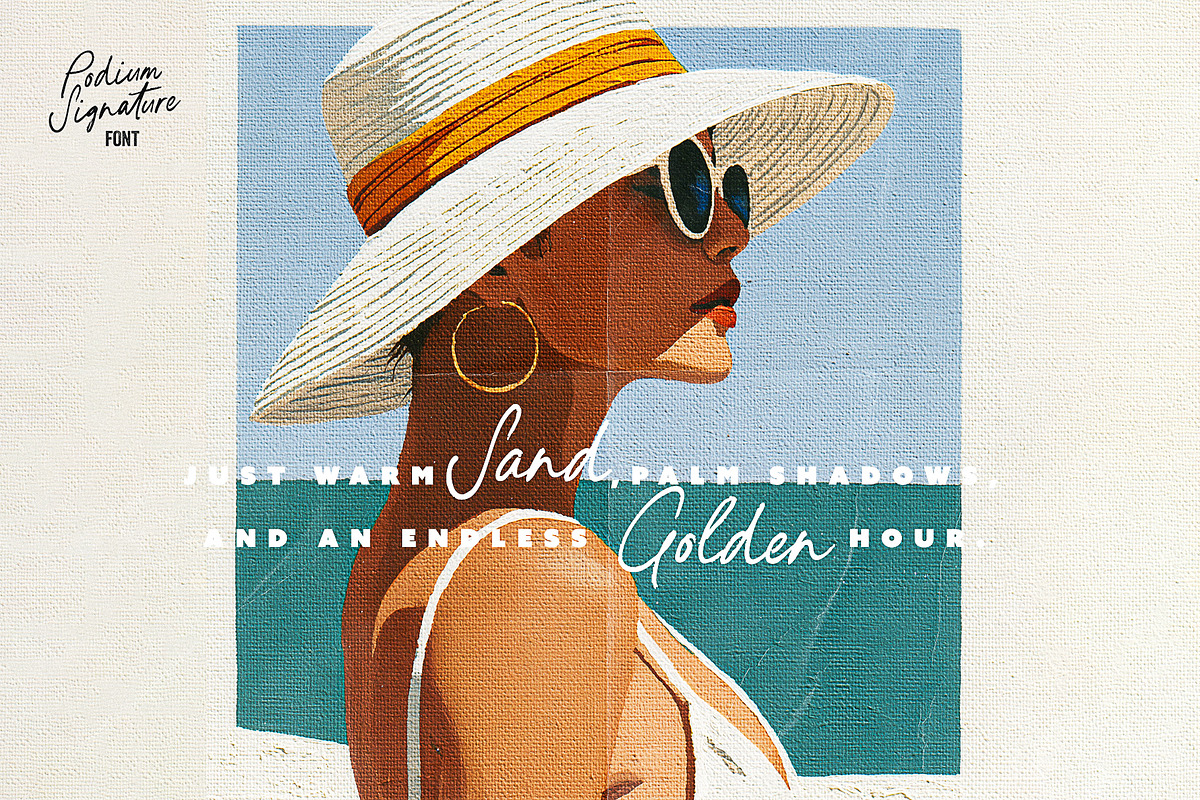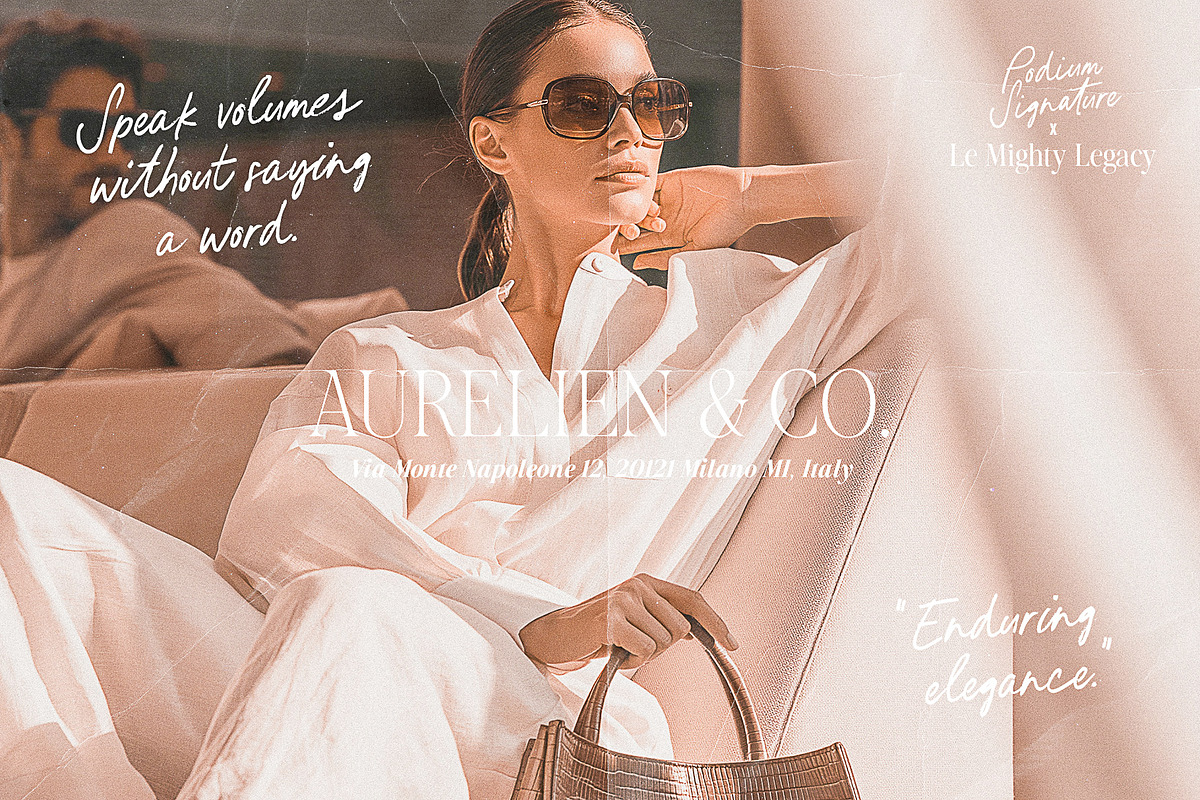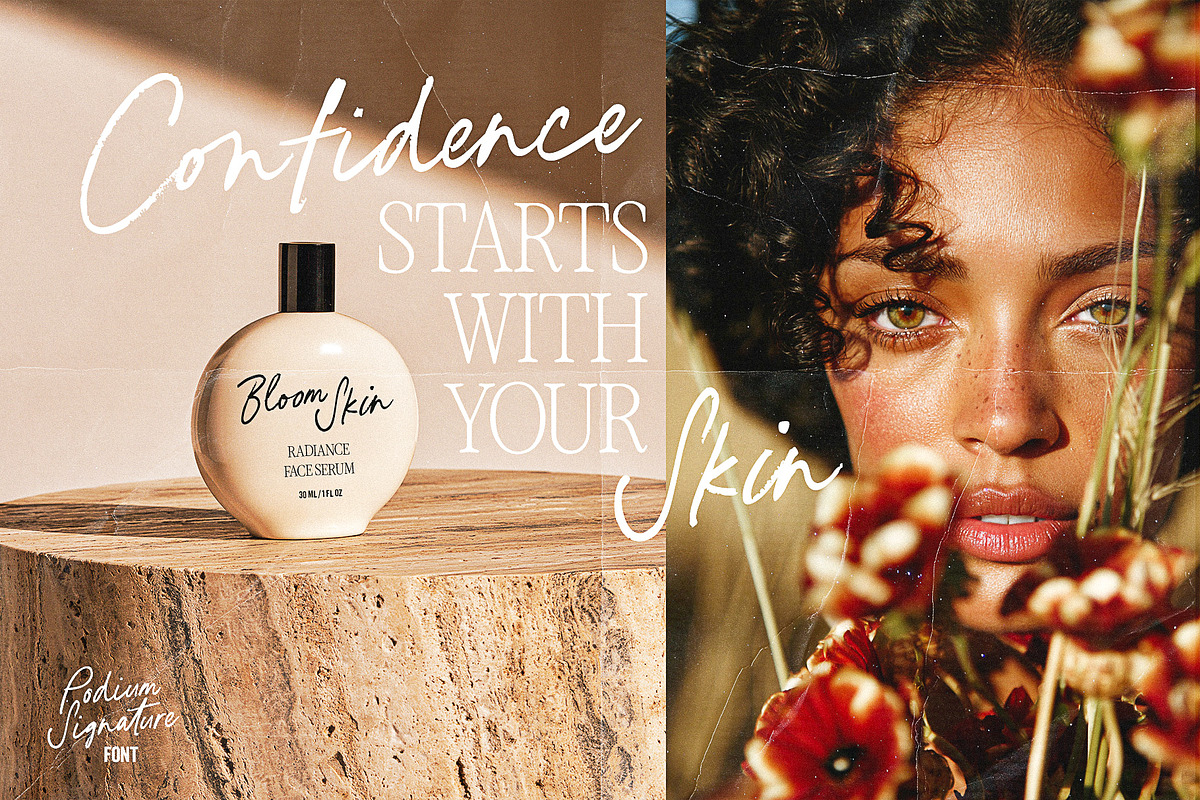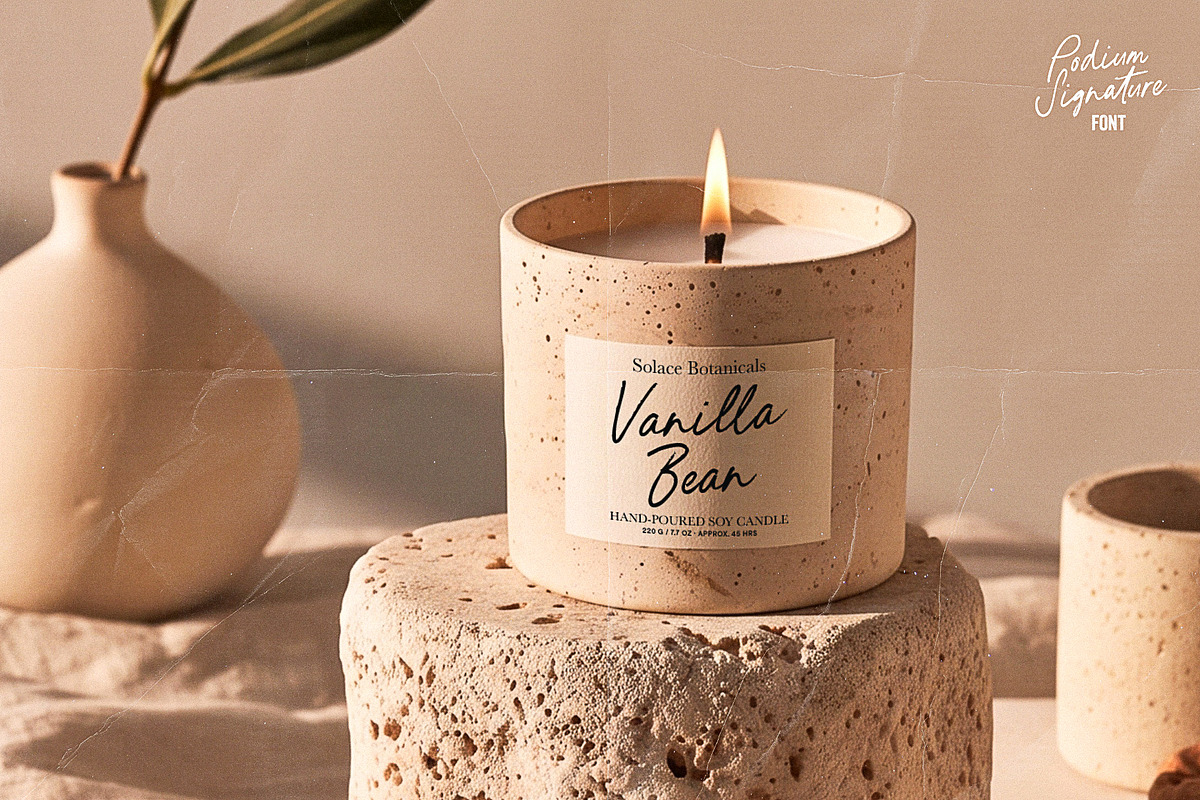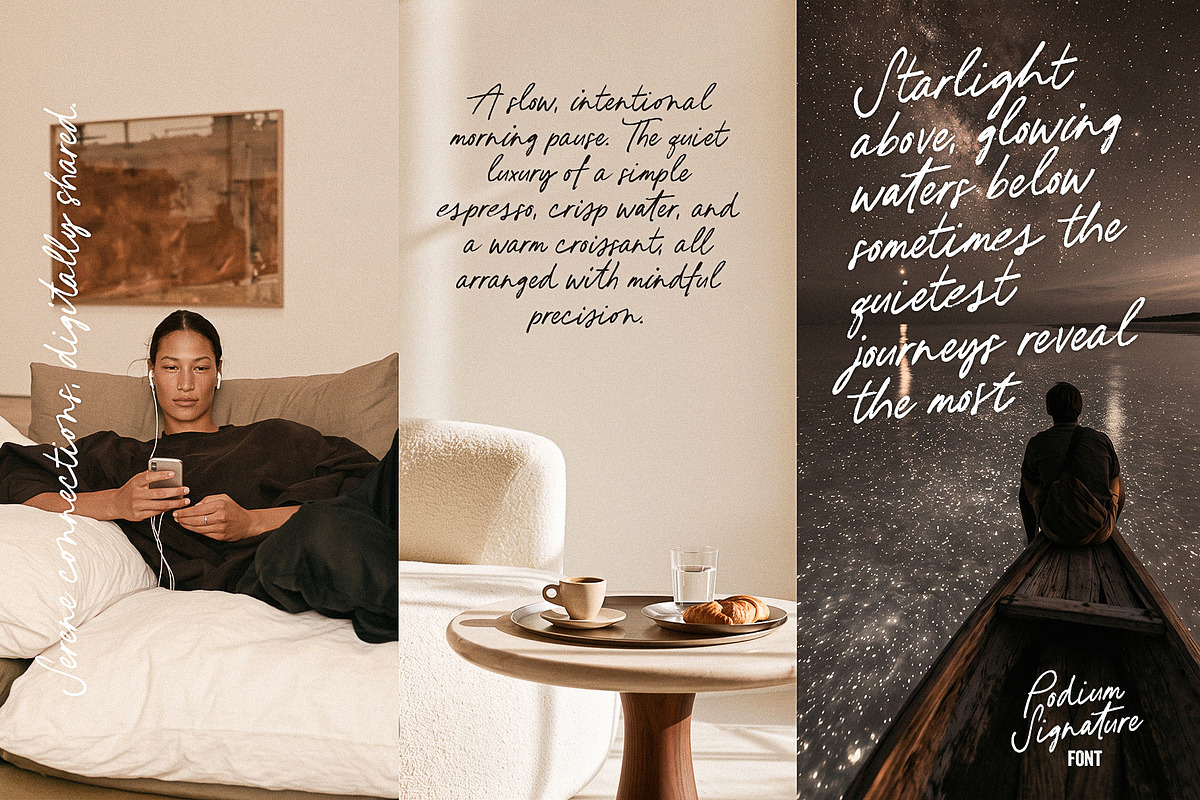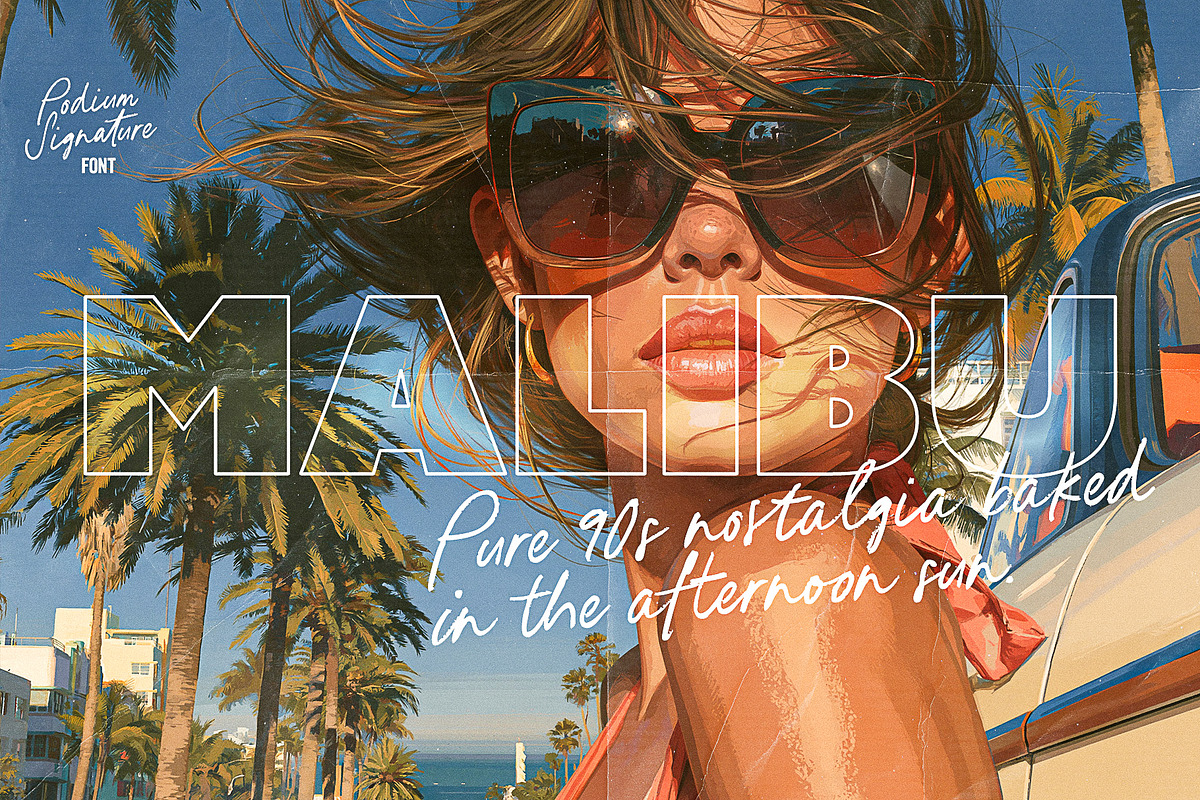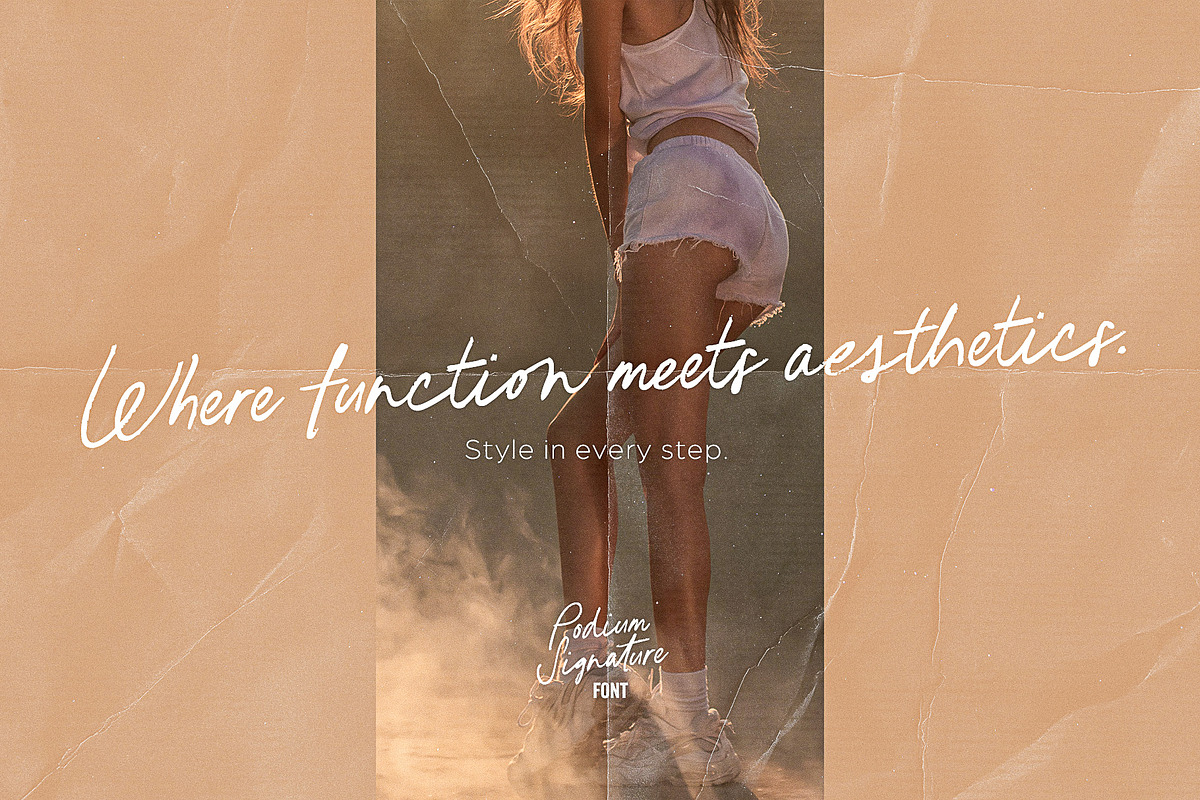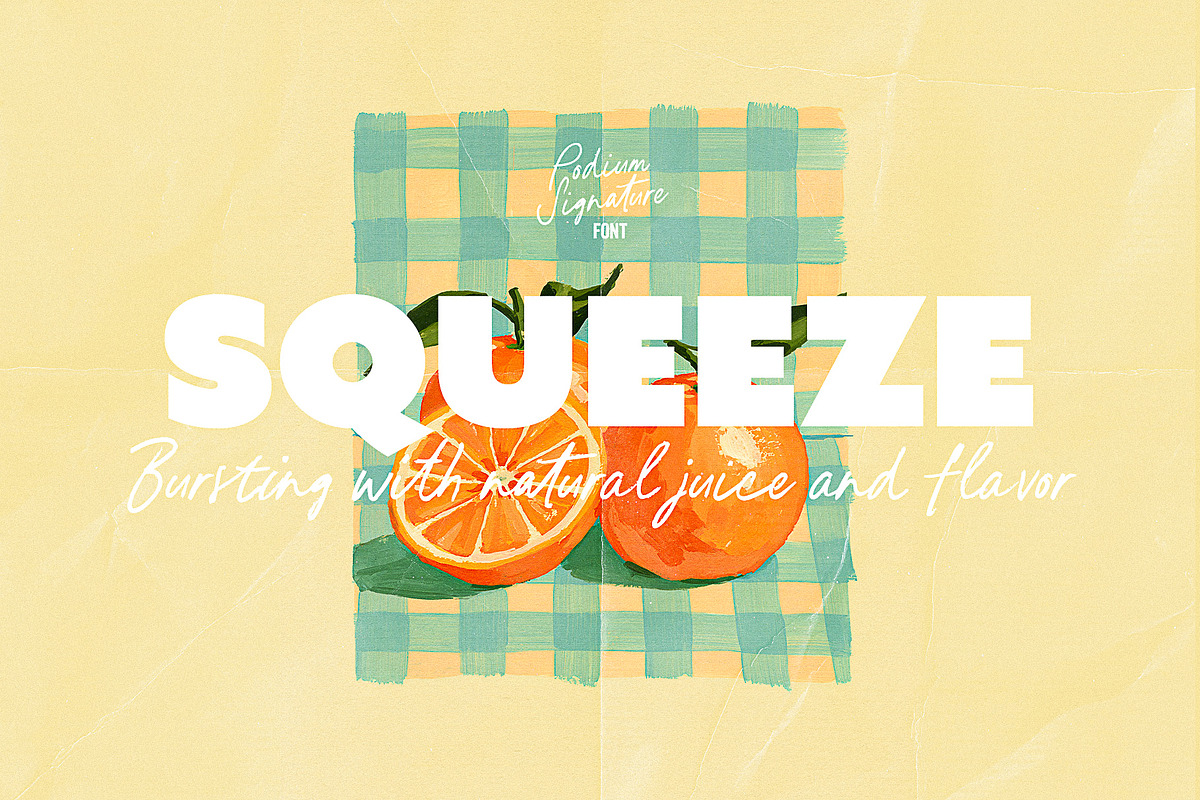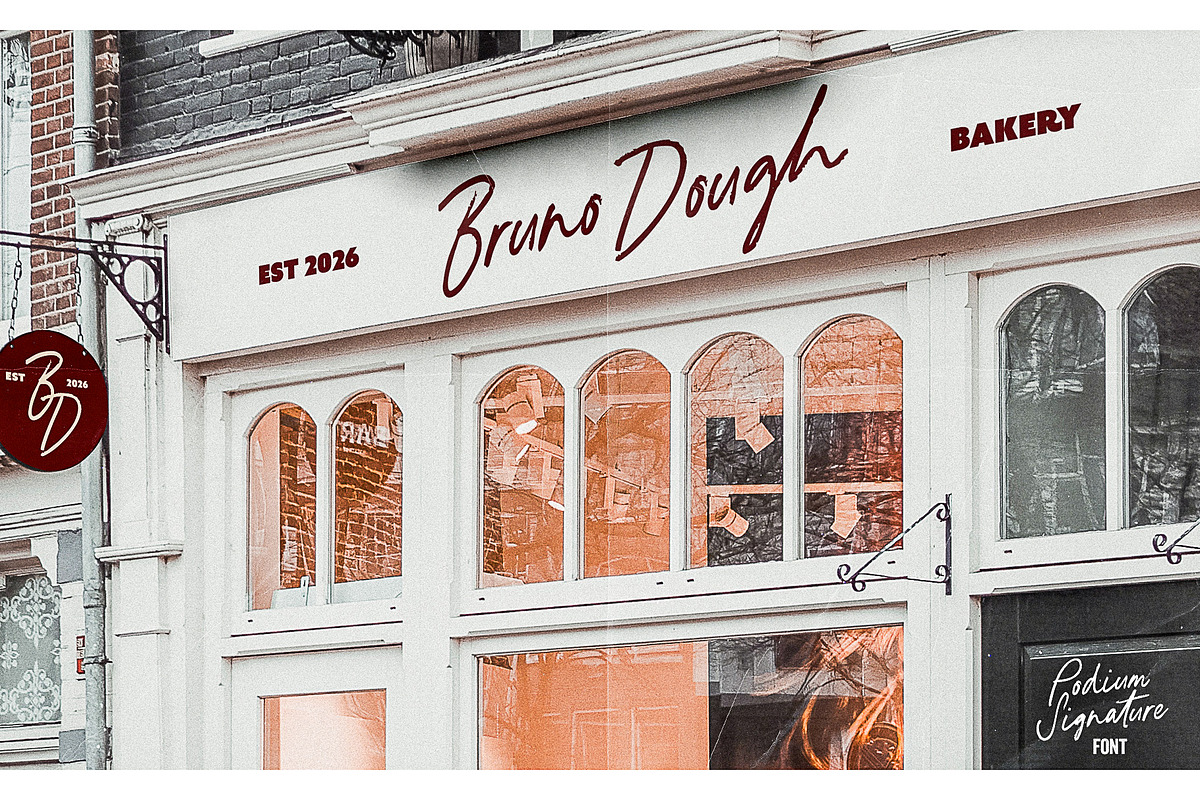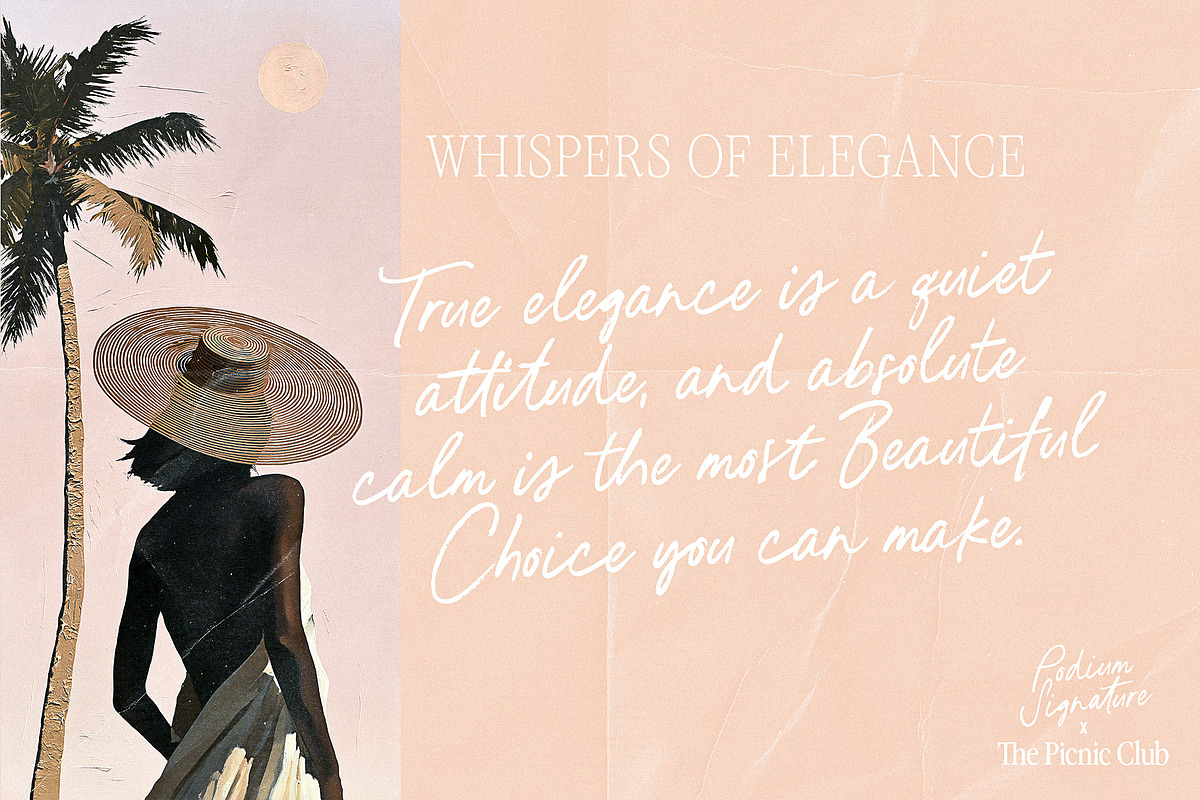
Podium Signature 90s Script Font
Podium Signature - 90s Signature Script Font
Podium Signature is a bold, handwritten signature script with a thick marker-style stroke and the raw, energetic feel of a real autograph. Inspired by 90s sports memorabilia, vintage trading cards, and stadium sign-offs, it brings instant nostalgia to any design.
To feel like an actual signature instead of a typed font, Podium Signature comes packed with an extensive set of ligatures and OpenType alternates that connect letters the way a hand naturally would - no two words look mechanically repeated.
Sports and streetwear branding
Apparel, merch, and packaging
Logos and signature-style wordmarks
Social media graphics and posters
Editorial and varsity-inspired design
Ligatures & OpenType stylistic alternates
Uppercase, lowercase, numbers & punctuation